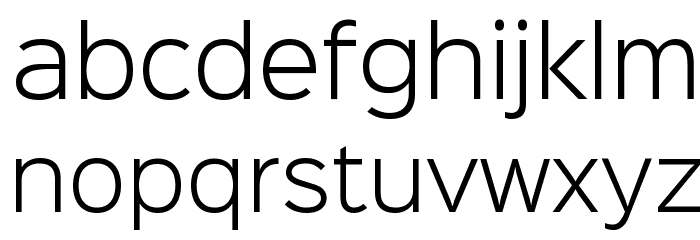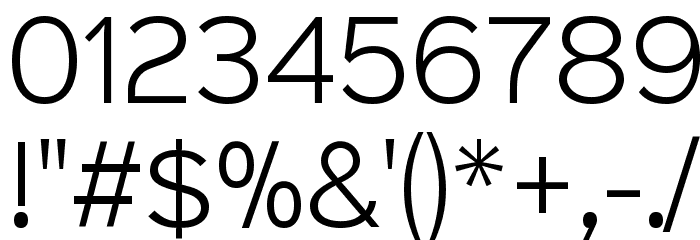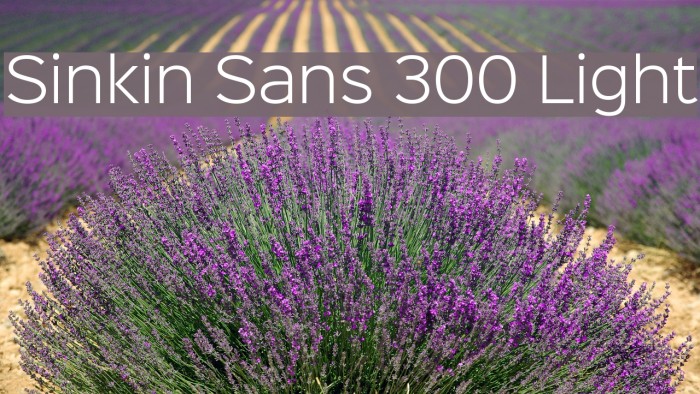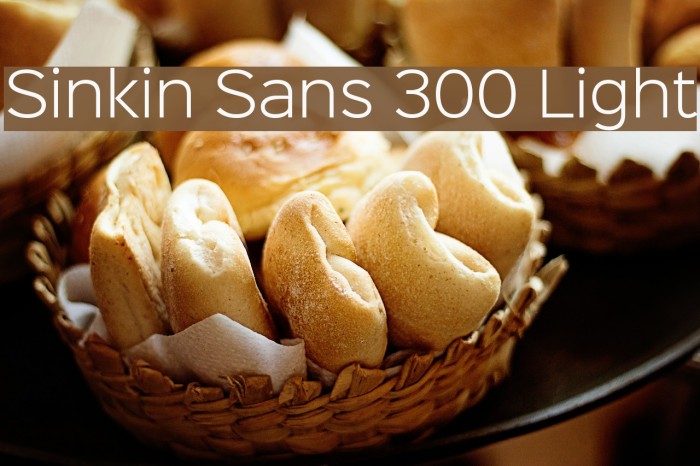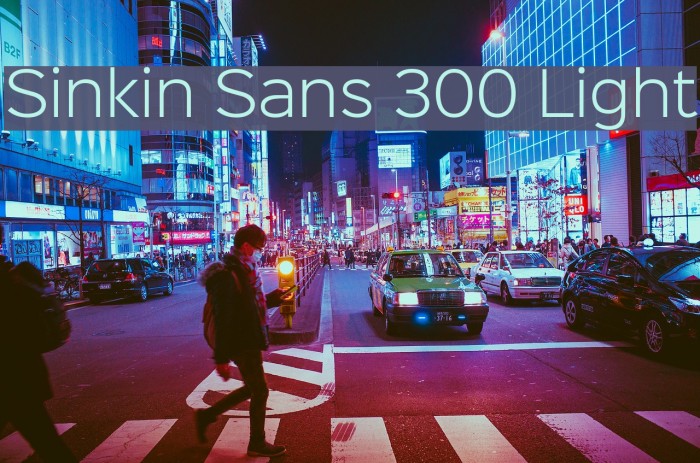
Sinkin Sans 300 Light Font
This font exhibits a clean and modern sans-serif style, characterized by its light weight and minimalistic design. The characters are evenly spaced, providing a balanced and airy appearance. The strokes are consistent in thickness, contributing to a uniform and sleek look. The font's simplicity and clarity make it highly legible, suitable for a variety of digital and print applications. Its geometric shapes and smooth curves offer a contemporary feel, making it versatile for both professional and casual use.
A modern, light sans-serif font with clean lines and balanced spacing.
- Proposed Projects: Ideal for web design, corporate branding, user interfaces, and minimalist print layouts.